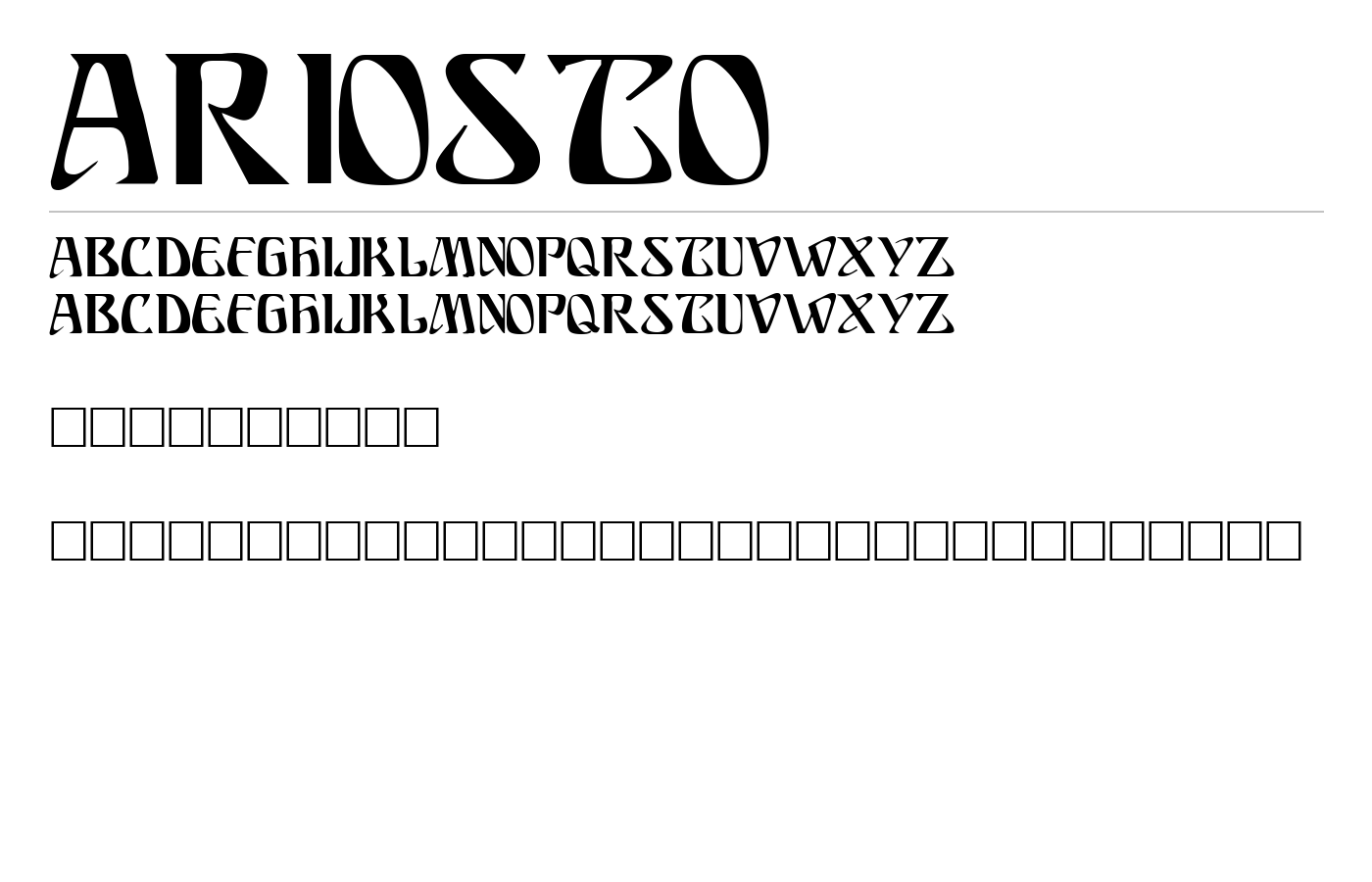
Ariosto is a distinctive serif font with a bold, artistic flair characterized by dramatic contrasts and stylized, almost calligraphic letterforms. Its unique shapes and strong personality make it ideal for eye-catching headlines, logos, and creative branding that seeks a vintage or theatrical vibe. This font works best in display settings where its ornamental details can shine without compromising readability.
Ariosto Font